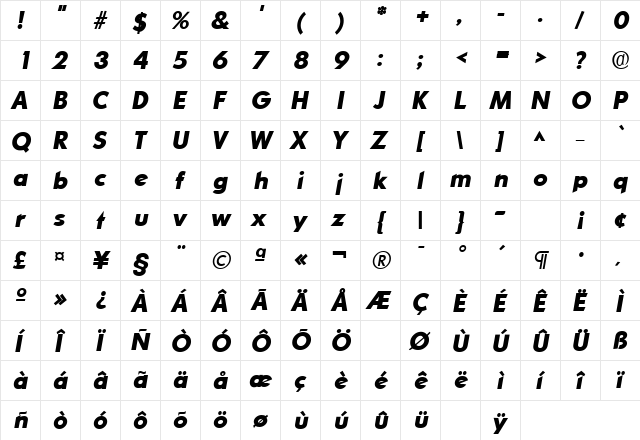
OrnitonsLH Bold Italic
Design Context for OrnitonsLH Typeface
OrnitonsLH is a composed and adaptable typeface that performs quietly and consistently across a wide range of design contexts. The dynamic lean of this cut emphasises speed and emphasis in any layout. The heavy weight commands attention and anchors typographic hierarchies.
Pro Tip: Use OrnitonsLH for emphasis, pull quotes, and subheadings where its slanted energy can add rhythm to the layout.